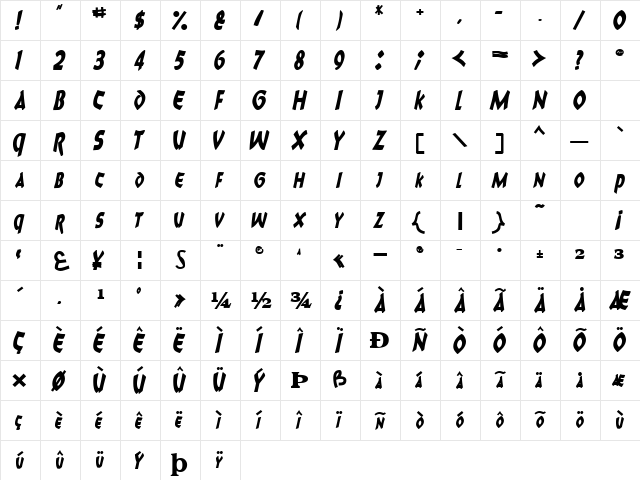
8BallScriptSCapsSSK BoldItalic Font Preview
Design Context for 8BallScriptSCapsSSK Typeface
8BallScriptSCapsSSK flows with the natural rhythm of handwritten lettering, making it ideal for designs that call for warmth and personal expression. Its bold stroke weight gives it real presence on the page.
Font Pairing: Combine 8BallScriptSCapsSSK with a simple geometric sans for maximum contrast — the tension between flowing curves and clean structure is a classic typographic pairing.
Pro Tip: Pair 8BallScriptSCapsSSK with a clean sans-serif for supporting text. The contrast between fluid script and geometric structure creates an elegant typographic hierarchy.